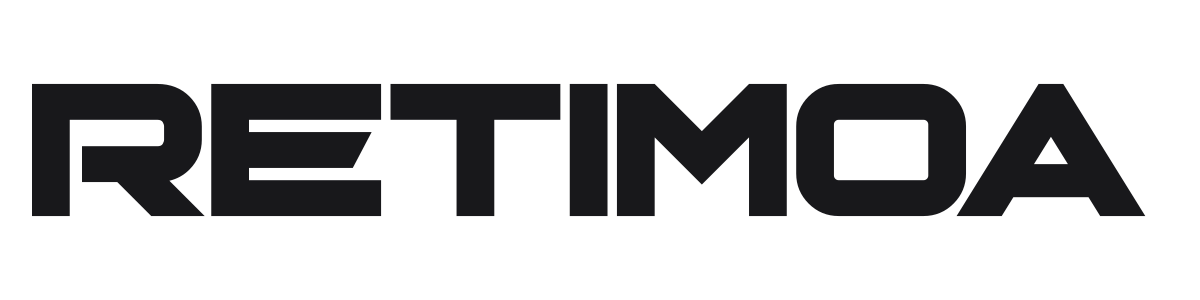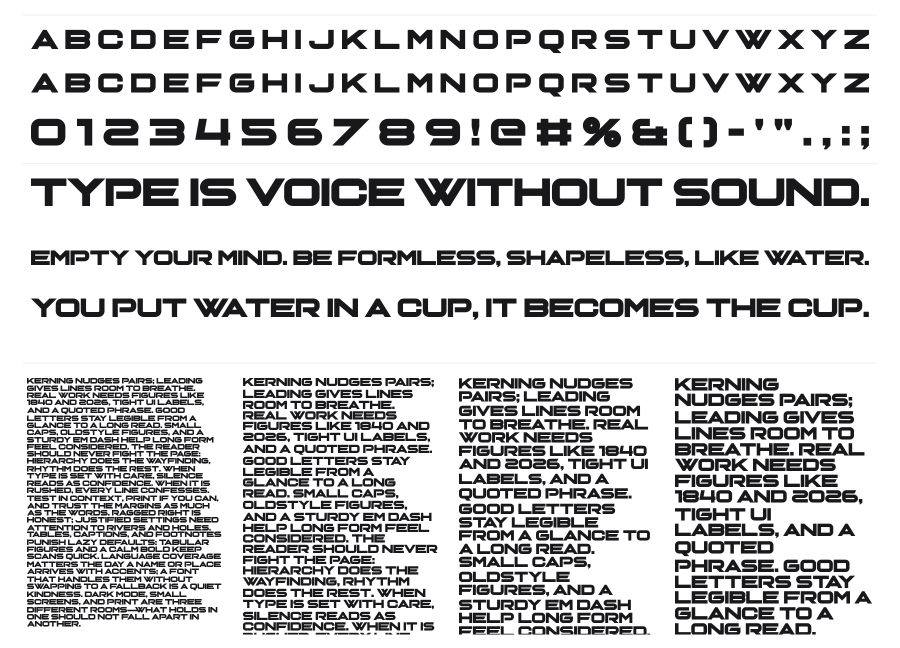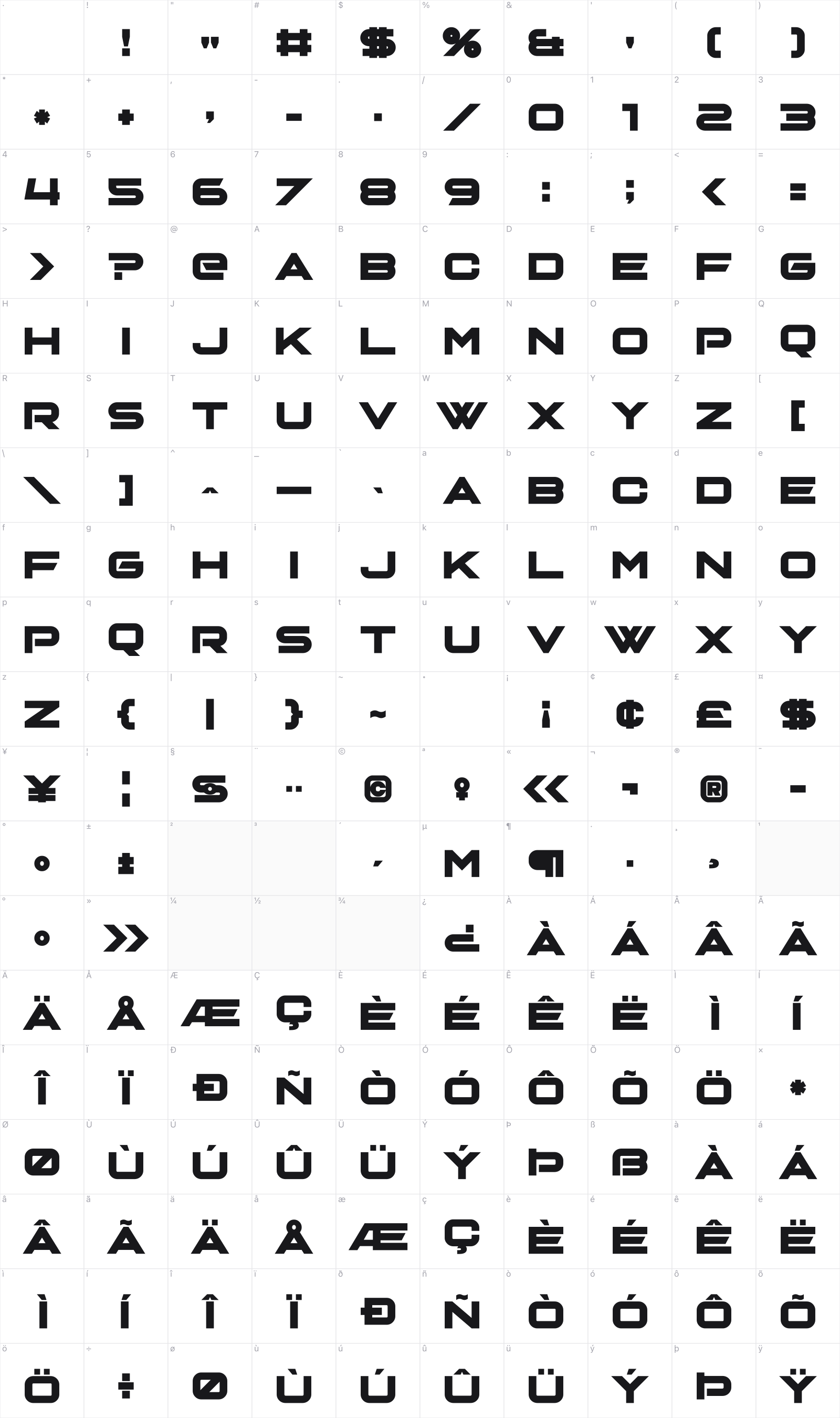
Retimoa
Retimoa is a bold, wide geometric sans with a heavy rectangular build and sharp angular details. The flat terminals and near-zero stroke contrast give it a hard, mechanical character that reads loud at any headline size. It fits naturally in gaming titles, sports branding, and anything that needs weight and authority.